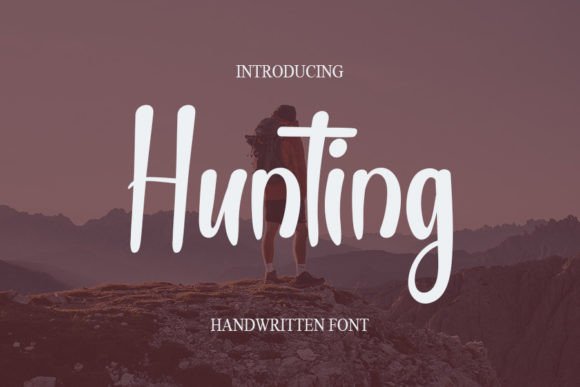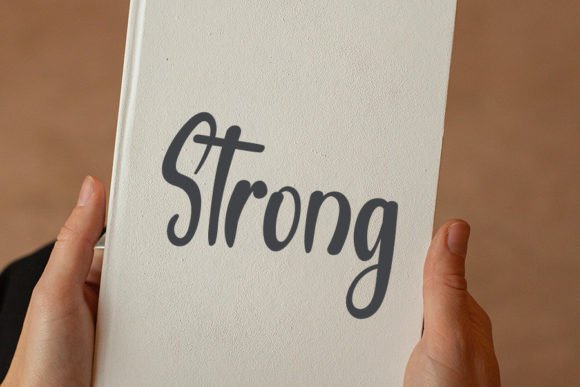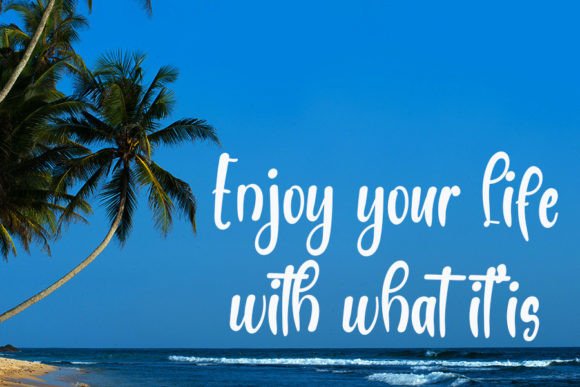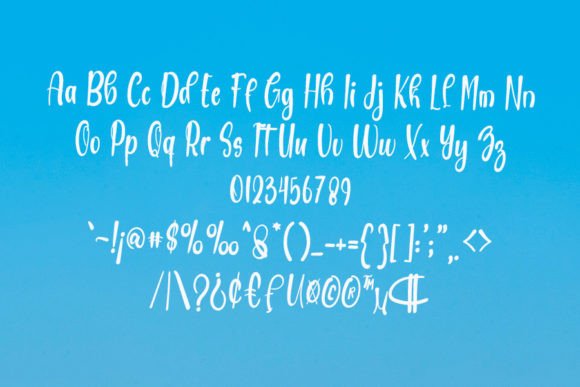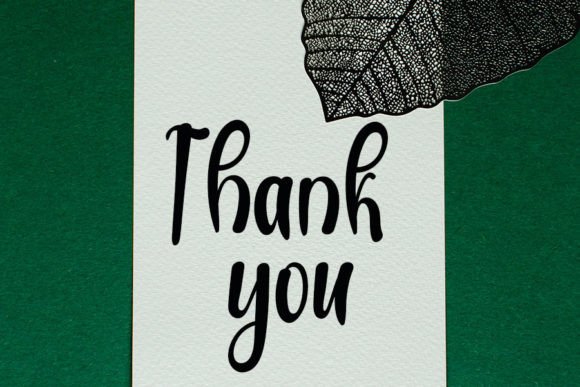
Hunting Font
About Hunting Font
“Hunting” is a cool and modern handwritten font that combines a contemporary vibe with a clean and classic calligraphy-inspired form. This font strikes a harmonious balance, falling neither too thin nor too thick, with a variety of characters that enhance the overall beauty of your projects.
The charm of “Hunting” lies in its ability to bring a sense of modernity and clean design to your creative works. Its handwritten style adds an artistic touch while maintaining readability, making it a versatile choice for a wide range of design applications.
Whether you’re working on branding, logos, posters, invitations, social media graphics, or any project that calls for a fresh and contemporary font, “Hunting” is the typeface that can enhance your work and help it stand out.
This font offers both style and practicality, ensuring that your projects not only look modern and well-crafted but also effectively convey your intended message to your audience.
Embrace “Hunting” with enthusiasm and you’ll see how it elevates your creative projects with its modern vibe and clean, balanced forms, making your designs more visually appealing and memorable, regardless of the context or application.